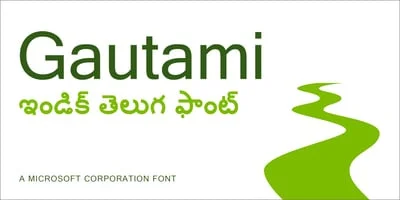
Gautami Font is ideal for Telugu language publications, South Indian cultural projects, multilingual educational materials, regional government documents, traditional festival promotions, cultural heritage websites, Indian restaurant menus, and authentic regional branding initiatives. This culturally significant typeface brings Telugu script authenticity and South Indian cultural heritage to any design project requiring genuine regional language support.
What makes Gautami Font exciting is its faithful representation of traditional Telugu calligraphy combined with modern digital typography standards that ensures perfect readability across all platforms while preserving cultural authenticity. The carefully crafted character forms maintain proper Telugu script proportions and traditional stroke relationships that respect ancient writing traditions. Each glyph demonstrates meticulous attention to cultural accuracy while providing contemporary functionality for global design applications.
The Gautami Font family includes regular weight with comprehensive Telugu character sets, including all essential vowels, consonants, conjuncts, and diacritical marks. The extensive Unicode coverage encompasses thousands of Telugu characters, plus Latin alphabet support for bilingual applications essential for professional Telugu typography and international design projects requiring authentic regional script representation.
Whether you're developing South Indian cultural content or creating authentic Telugu publications, Gautami Font delivers unmatched cultural authenticity and professional quality. This distinguished typography choice transforms multilingual designs into culturally respectful communications that resonate with Telugu-speaking communities worldwide. The font's exceptional technical precision ensures flawless rendering across digital and print media while maintaining its distinctive cultural character that makes every design project feel authentic and professionally crafted for Telugu language applications and South Indian cultural celebrations.